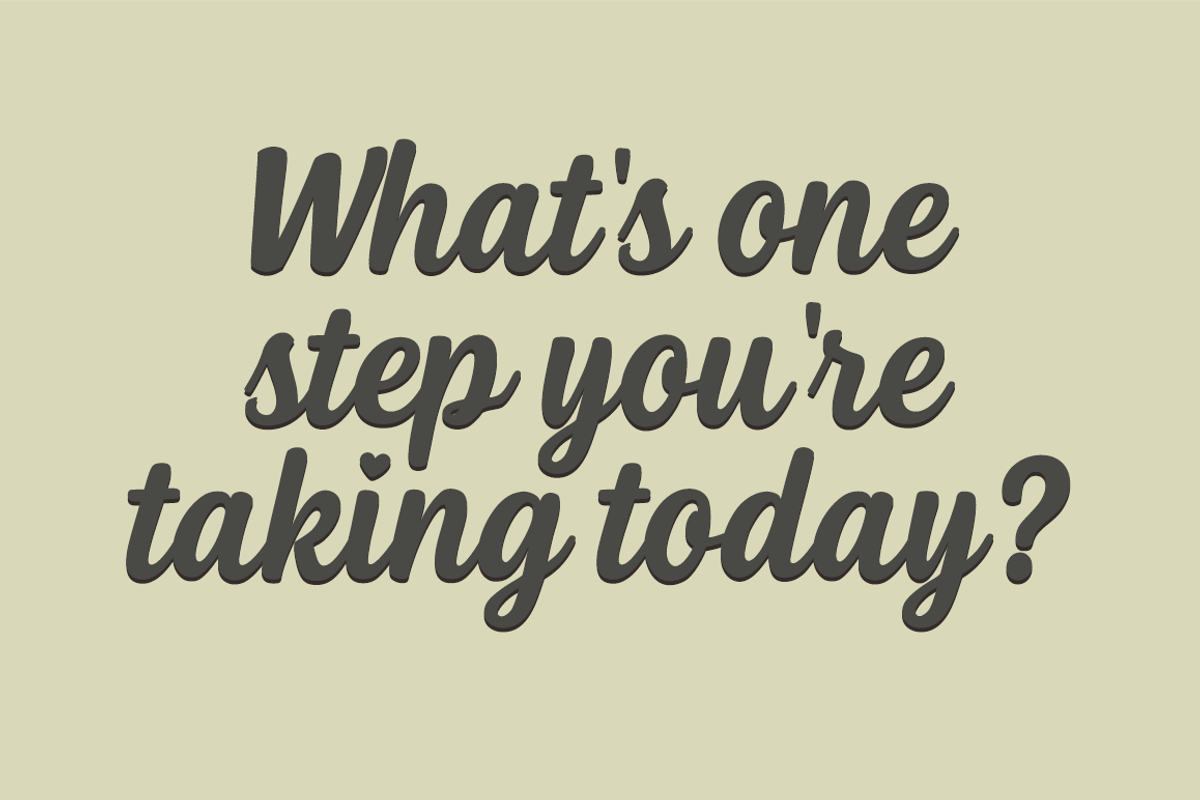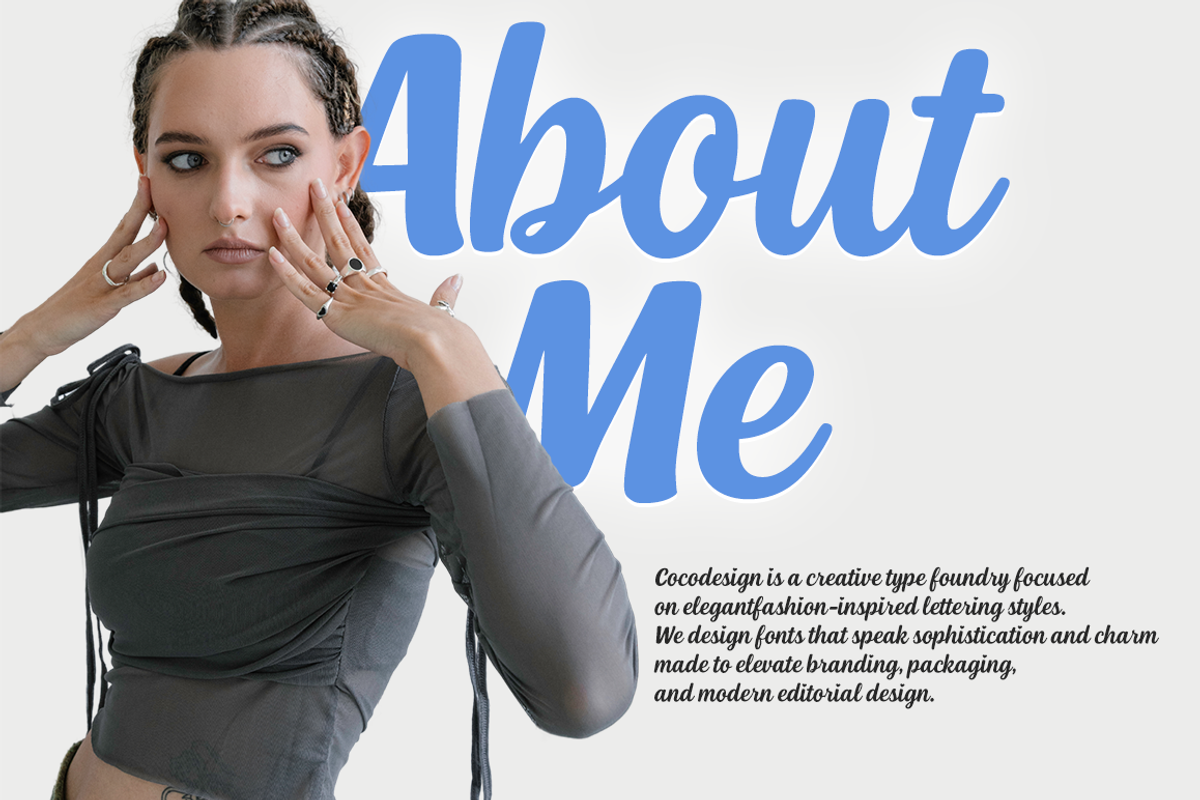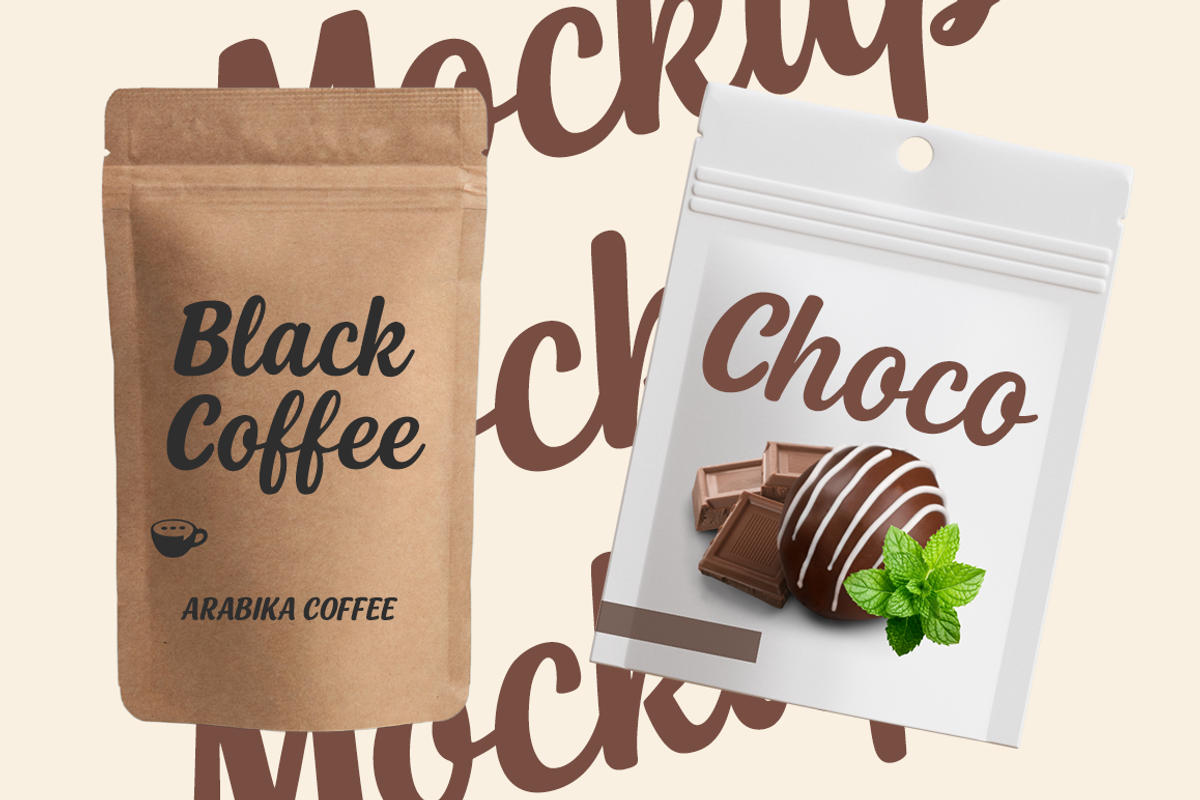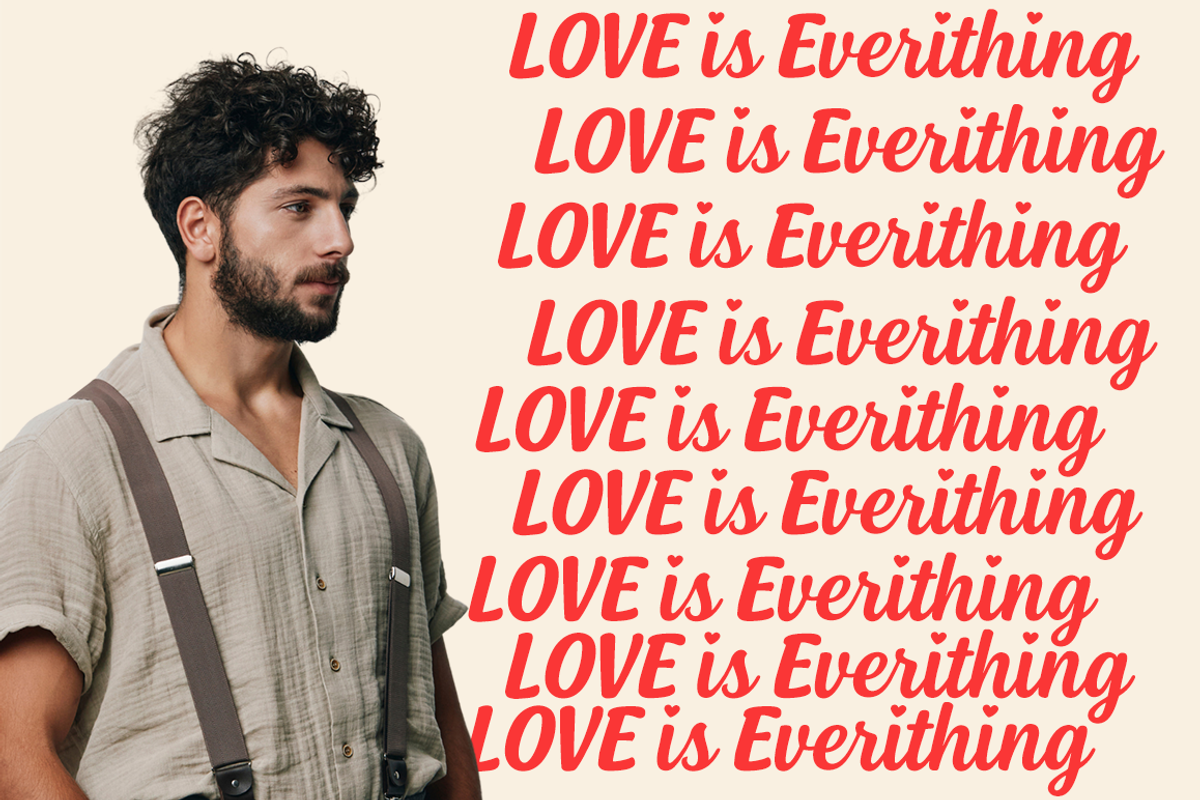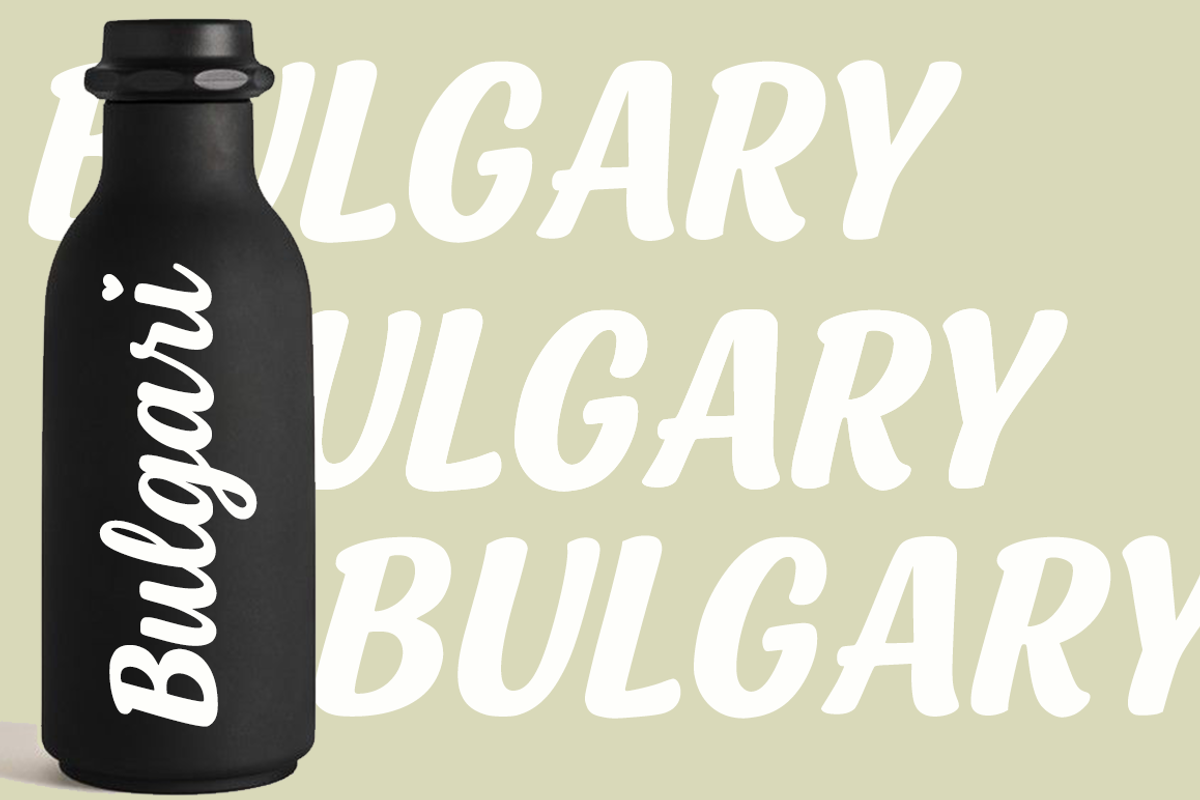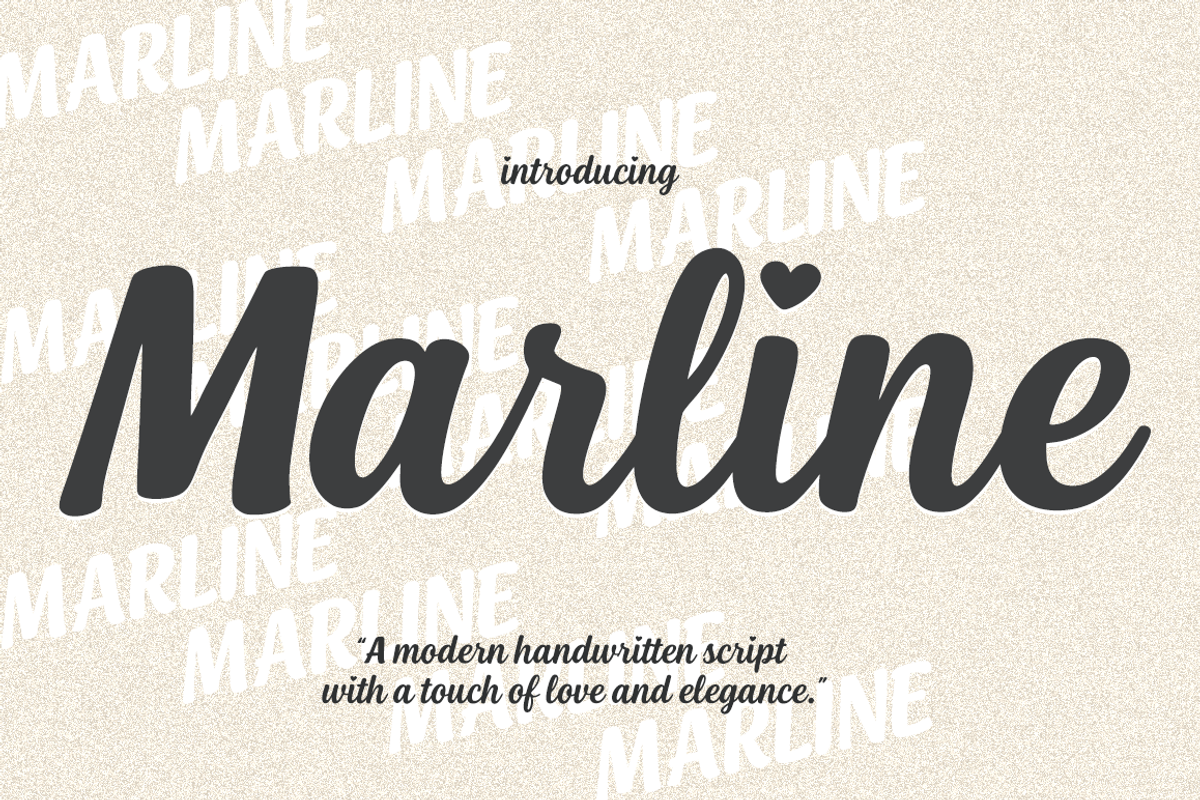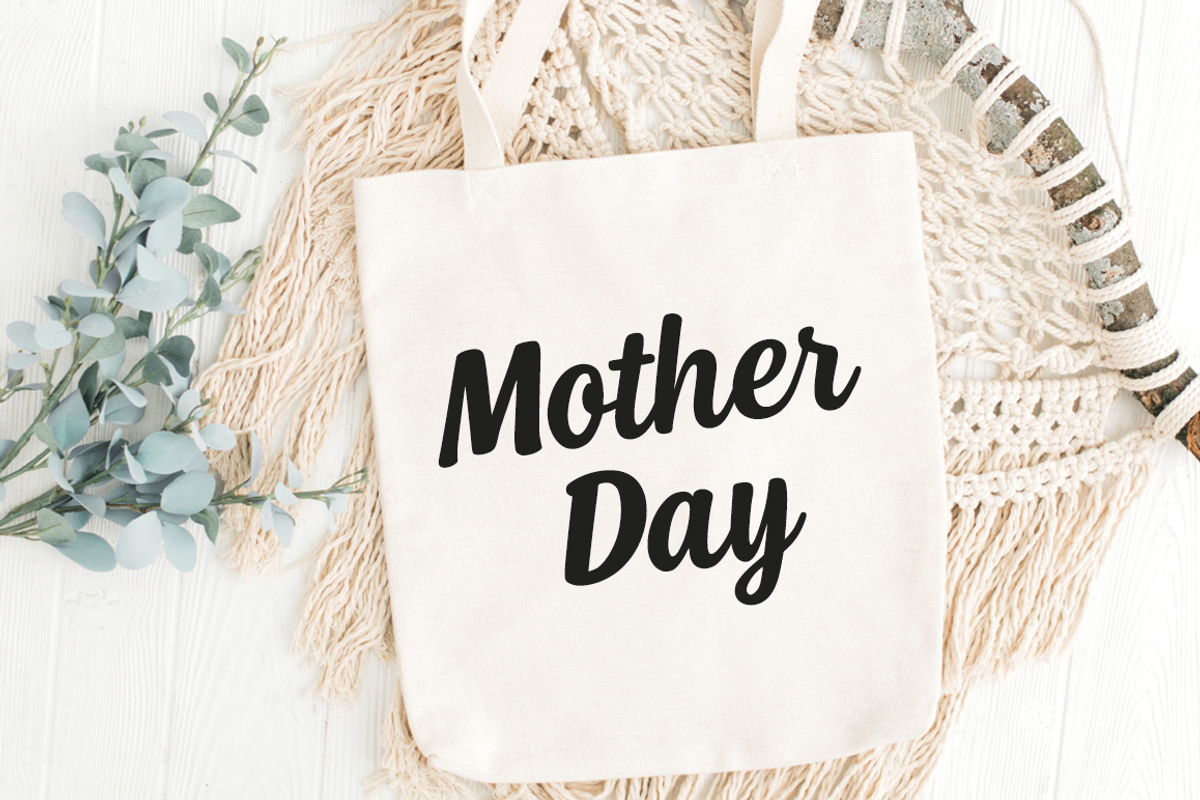
Marline Script font
Marline – Modern Handwritten Script Marline is a modern handwritten script that combines love and elegance in every stroke. With smooth curves, slightly bold lines, and a natural handwritten flow, Marline brings a warm, feminine, and graceful touch to any design.
The charming heart dot on the “i” adds a romantic detail, making it perfect for wedding invitations, fashion branding, logos, and aesthetic quotes.